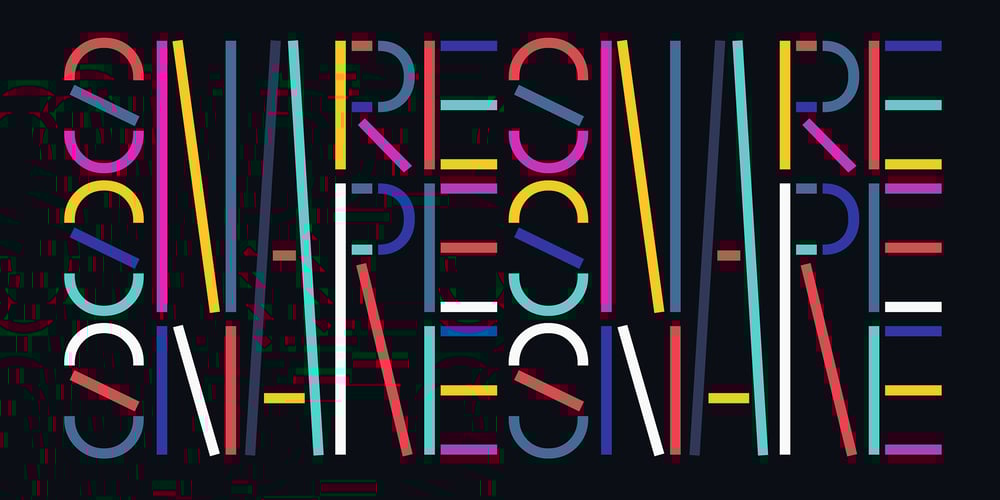
Snare Font Family was designed by Rodrigo Fuenzalida, Alexander Wright and published by In-House International. Snare contains 22 styles and family package options. A typeface that celebrates marching to the beat of your own drum.Snare is a jazzy little display type that presents like a stencil but behaves in its own way.Featuring angled section breaks and variable heights, Snare keeps each character’s footprint steady as as its heights change, revealing unique crossbars, periscoping capitals and deep-sinking descenders. Because each character follows its own rules, the more each word grows, the more it shows the beautiful rhythm of variety. Or stretch individual characters to shape the contours of your words.Beyond just being playful, fun to dress in colors, and delightfully useful for tight spaces,Snare’s lanky verticals and nervous energy reflect the time it was created. In this second pandemic spring, Snare brings up the drumroll-expectant heartbeat of our uncertainty, and the wish that when we can all meet again, our newfound weirdnesses will find a home in the world.The Snare font family includes one uppercase alphabet with two lowercase variants and comes in ten standard weights-which-are-just-really-heights (.otf) and as a variable type(.ttf) for designers using compatible platforms.Snare was designed by Alexander Wright and In-House International and developed byRodrigo Fuenzalida at FragType.In-House International’s foundry was launched in the summer of 2020 to offer bold, experimental, display typefaces that tell a story. Our previous releases have been featured on Design Milk, DesignBoom, Slanted and all sorts of exciting places.